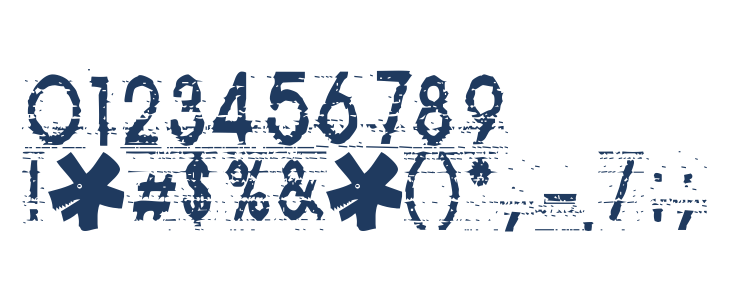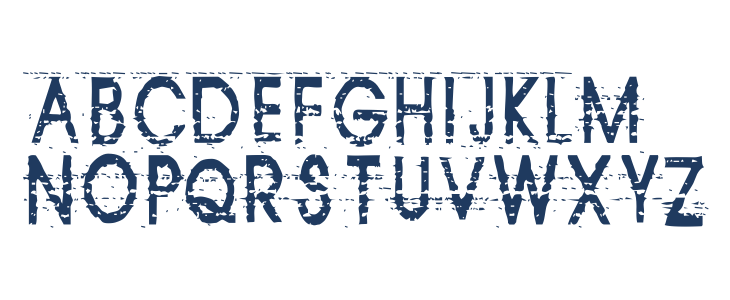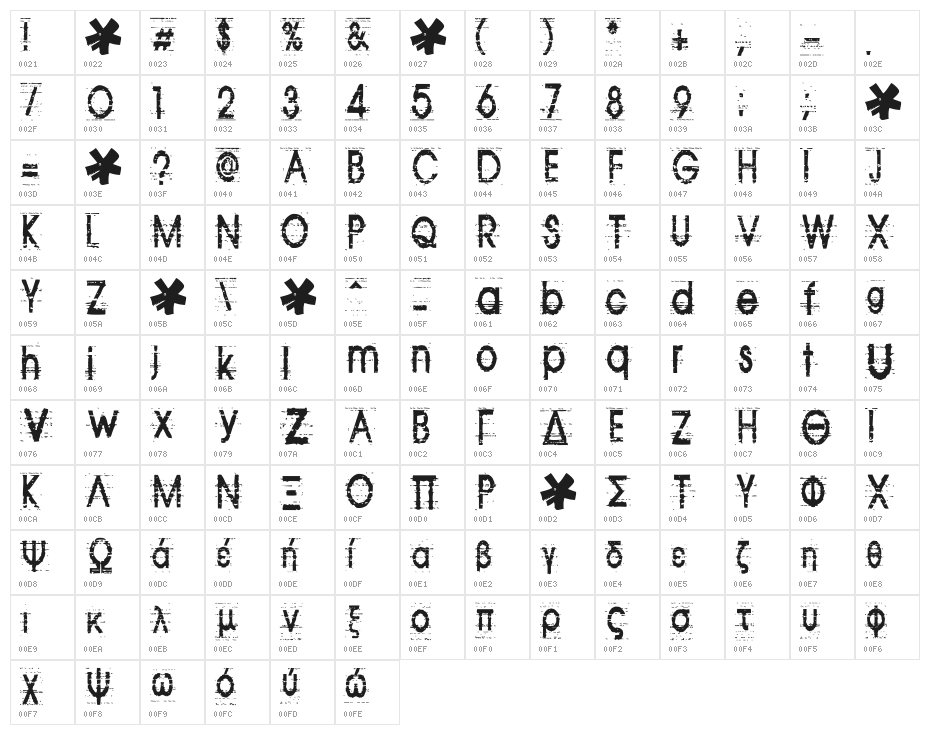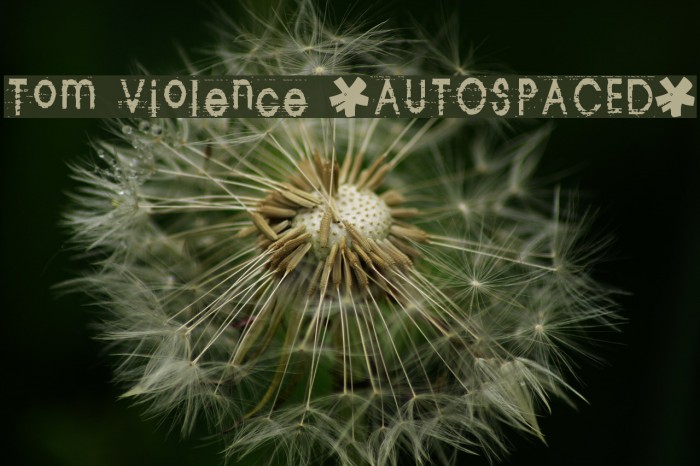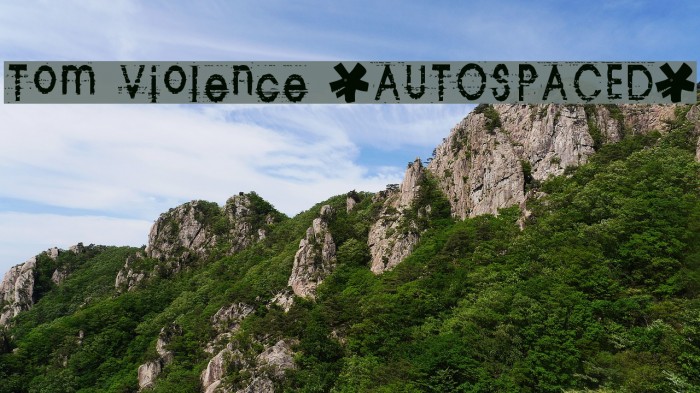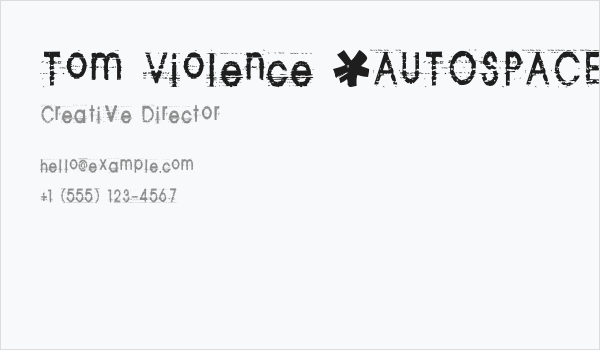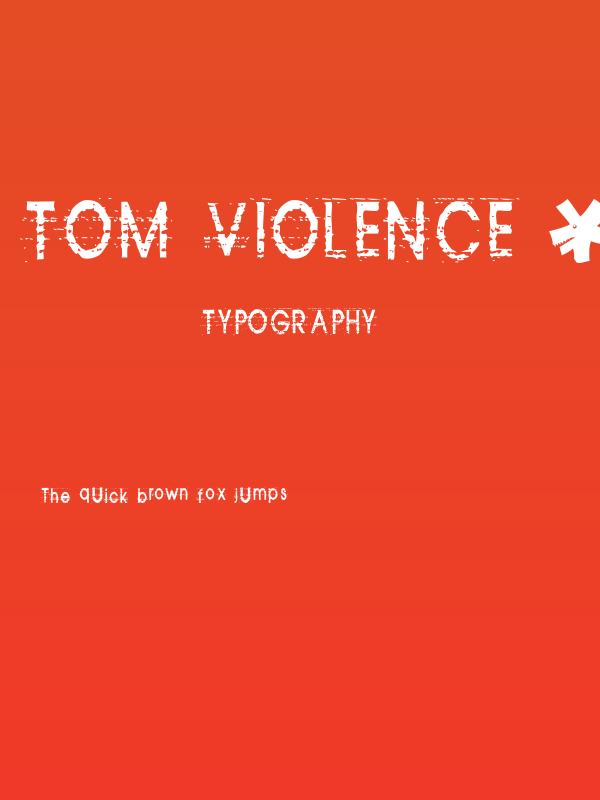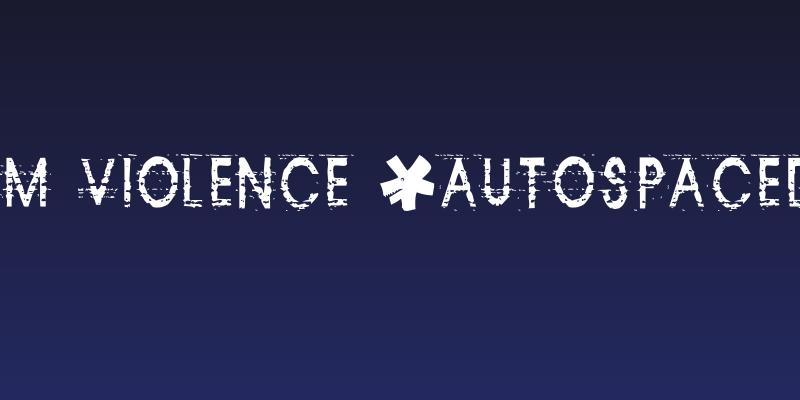
Tom Violence [AUTOSPACED] Font
Tom Violence [AUTOSPACED] Description
This font exhibits a distressed and grungy style, characterized by its rough, textured appearance. The letters are bold and have an uneven, worn-out look, giving them a unique, edgy feel. The uppercase and lowercase letters maintain a consistent style, with jagged edges and irregularities that add to the overall aesthetic. Numbers and special characters follow the same design, ensuring uniformity across all elements. This font is ideal for projects that require a raw, urban vibe, such as music album covers, posters, or any creative work that seeks to convey a sense of rebellion or nonconformity.
| Overall Style | Grunge, Edgy |
| Proposed Projects | Ideal for album covers, posters, and creative projects needing an edgy, urban vibe. |